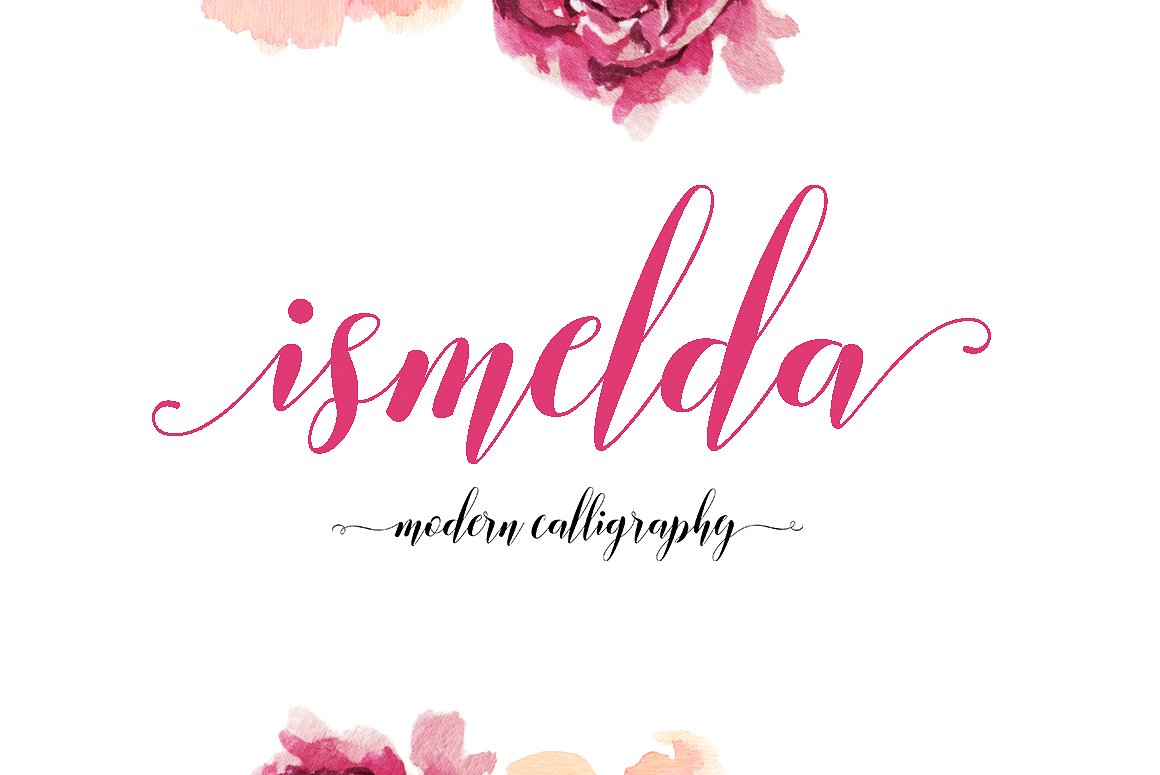
Ismelda Script
Ismelda Script Font
Ismelda Script is a modern calligraphy font, with characters dance along the baseline and elegant touch. With almost 553 glyphs. Opentype features with stylistic alternates, ligatures and multiple language support. Can be used for various purposes.such as logos, wedding invitation, letterhead, signage,news, t-shirt, heading lable, posters, badges etc